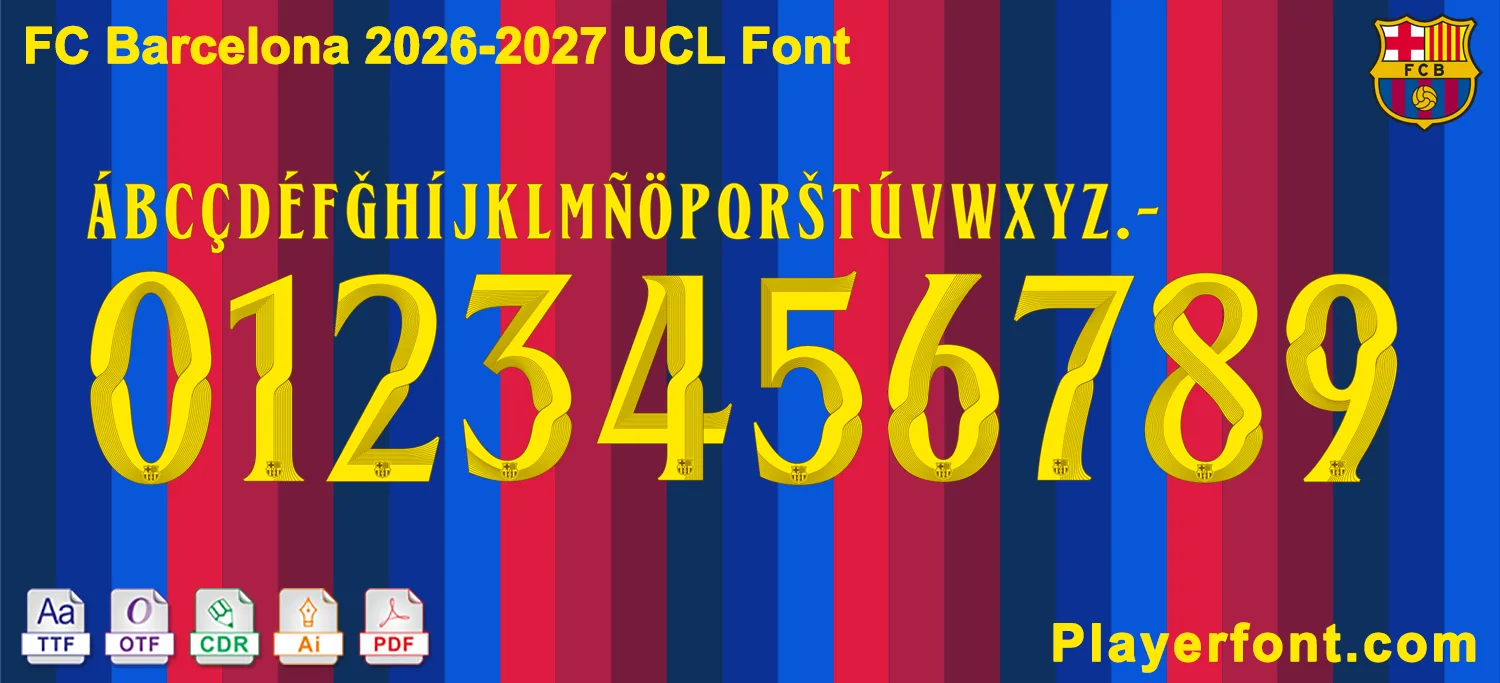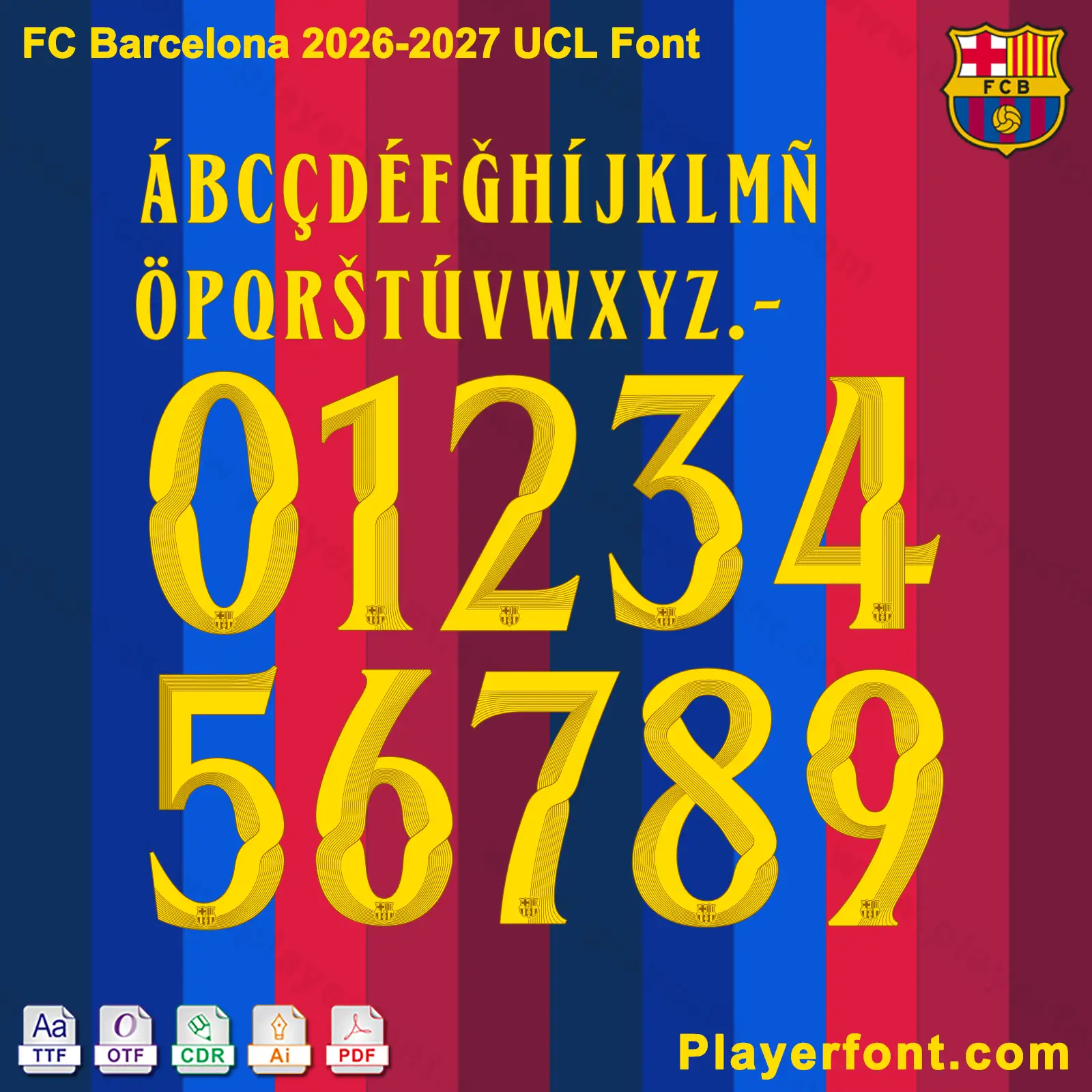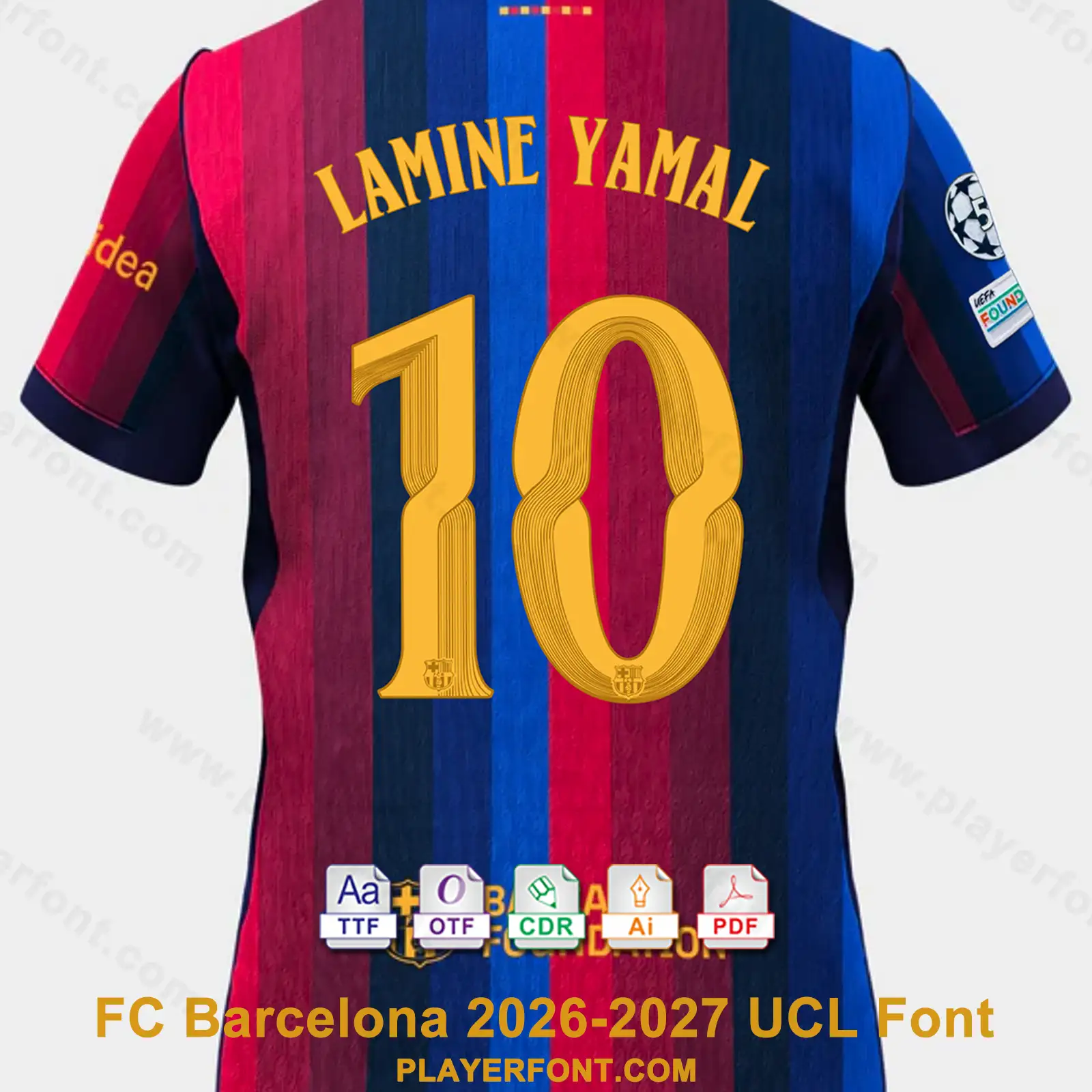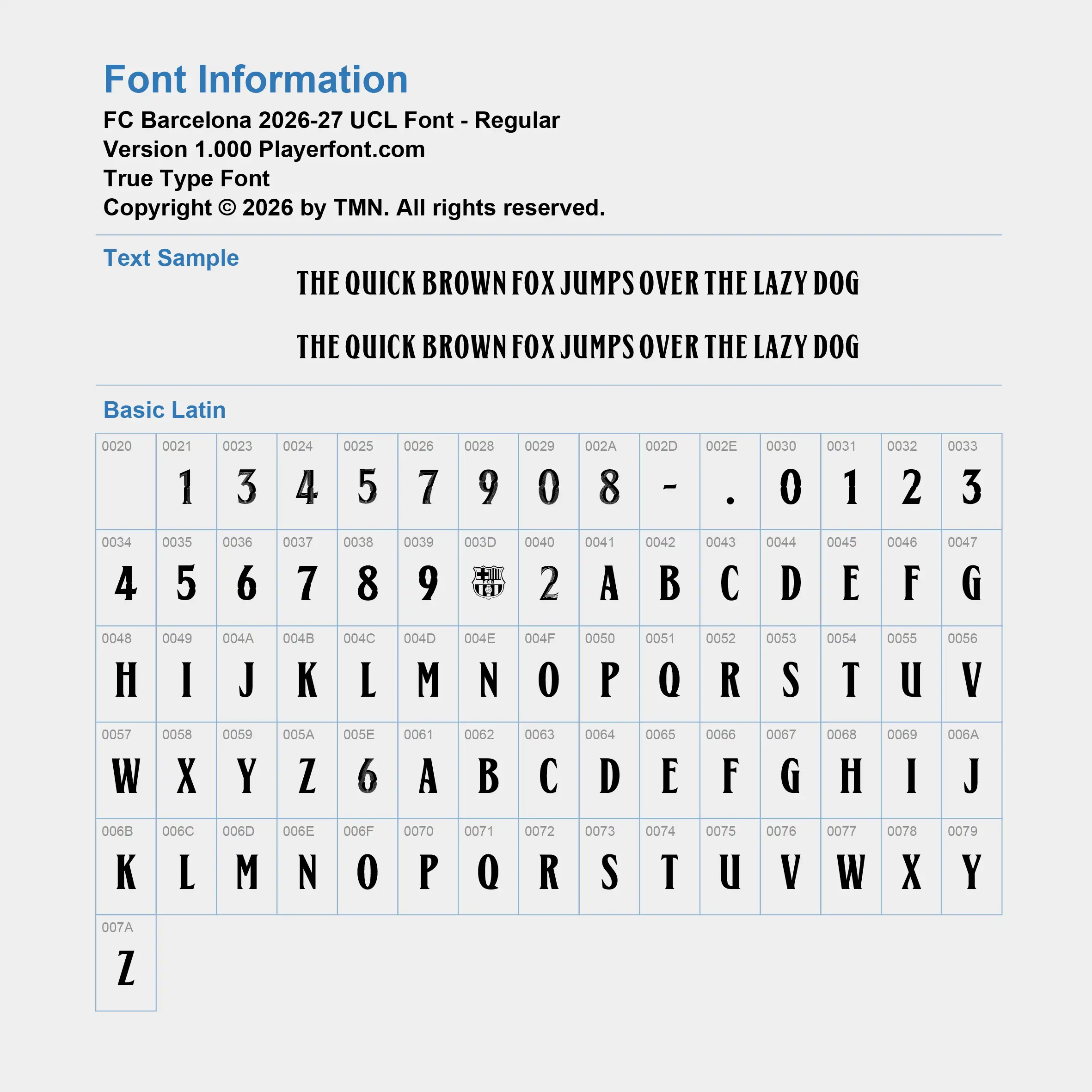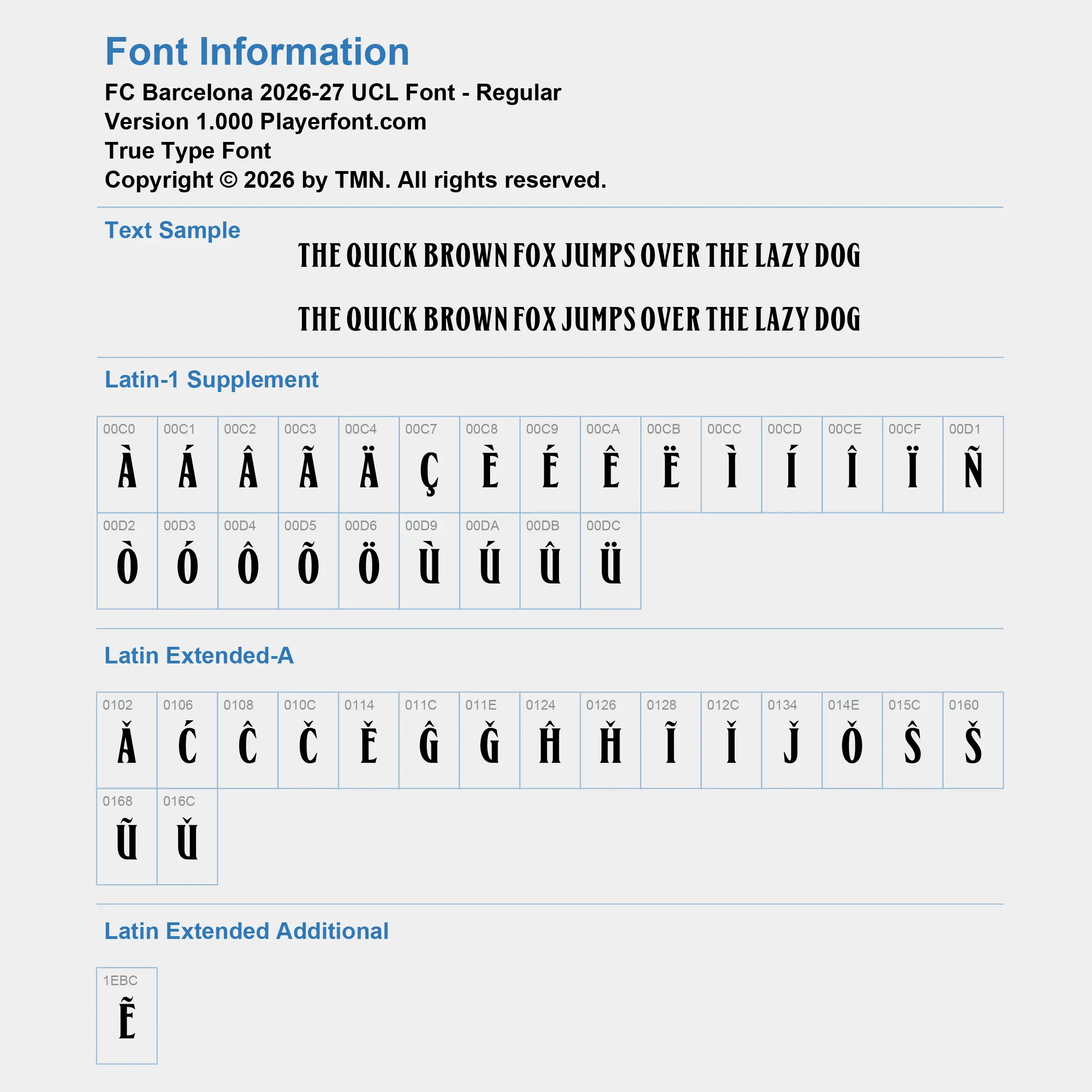
Elevate your sports jersey mockups, football custom graphics, and vector apparel printing projects with the high-quality FC Barcelona 2026-2027 UCL Font Download. Masterfully engineered by Playerfont.com, this high-performance typography set replicates the official-style numbers and classic serif lettering featured on the pitch for European cup and international tournament campaigns.
FC Barcelona 2026-2027 UCL Font Typography Features & Character List:
This typography pack is fully optimized to support international player rosters and diverse numbering layouts:
- Basic Latin & Serif Layout: Contains a classic, sophisticated uppercase character set, sharp serif lettering, numbers (0-9), periods, and hyphens.
- Advanced International Accent Support: Includes a deep library of accents (such as Á, B, C, Ç, D, É, F, G, H, Í, J, K, L, M, Ñ, Ö, P, Q, R, T, Ú, V, W, X, Y, Z, Š, Ž, Č, and Ẽ) ensuring flawless rendering for global football stars and localized Spanish/Catalan naming requirements (such as Lamine Yamal, Araújo, Lewandowski, etc.).
- Authentic Visual Details: The dynamic yellow-gold jersey numbers feature a gorgeous multi-line fluid wave pattern and contouring, complete with the official FCB club crest cleanly embedded at the base of each digit.
| Design Feature | Gold Multi-Line Wavy Fluid Styling with Crest Base Inlay |